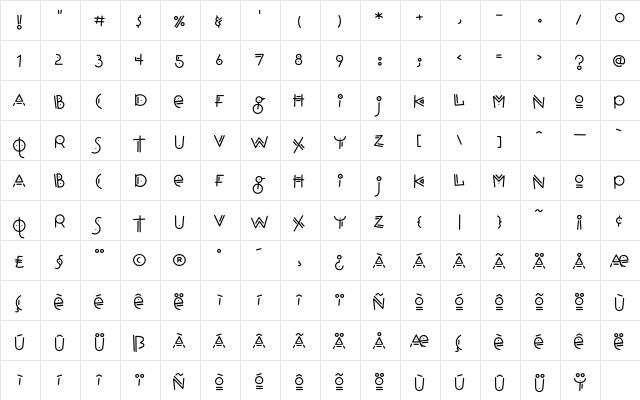
Hopscotch Regular
Design Context for Hopscotch Typeface
Hopscotch is a composed and adaptable typeface that performs quietly and consistently across a wide range of design contexts.